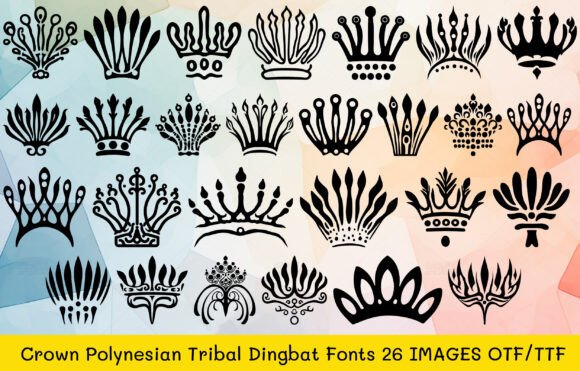
Crown Polynesian Tribal Font: Elevate Your Designs with Tropical Flair
In the realm of typography, fonts play a pivotal role in conveying messages, evoking emotions, and adding aesthetic appeal to designs. Among the myriad of font styles available, the Crown Polynesian Tribal Font stands out for its unique blend of traditional Polynesian tribal motifs with a modern, stylish twist. This comprehensive article delves into the features, benefits, and creative applications of the Crown Polynesian Tribal Font, a versatile typeface that is set to revolutionize your design projects.
Introduction to Crown Polynesian Tribal Font
The Crown Polynesian Tribal Font is a distinctive typeface that draws inspiration from the rich cultural heritage of Polynesian tribal designs. This font set comprises 26 unique designs, each corresponding to a letter of the alphabet from A to Z. What makes this font particularly appealing is its ability to infuse any design project with a tropical and exotic flair, reminiscent of the vibrant cultures of Polynesia.
Key Features of Crown Polynesian Tribal Font
- Unique Designs: The font features 26 unique designs inspired by Polynesian tribal motifs, ensuring that each letter is a work of art in itself.
- Tropical Touch: The font’s tropical inspiration makes it perfect for projects that require a distinctive, exotic aesthetic.
Applications of Crown Polynesian Tribal Font
The Crown Polynesian Tribal Font is not just a typeface; it’s a design element that can elevate a wide range of projects. Here are some of the key areas where this font can make a significant impact:
- Branding: Use the font to create memorable logos and brand identities that stand out with a unique, tropical vibe.
- Crafting: Perfect for crafters who want to add a personal touch to their products, such as handmade cards, artisanal jewelry, and bespoke home decor.
- Graphic Design: Enhance your brochures, posters, and digital graphics with a touch of Polynesian elegance.
- Web Design: Add a tropical flair to website headers, menus, and other design elements to create a memorable user experience.
Benefits of Using Crown Polynesian Tribal Font
Incorporating the Crown Polynesian Tribal Font into your designs comes with several benefits:
- Cultural Appeal: The font’s unique cultural inspiration can help your designs stand out and evoke a sense of exotic beauty.
- Time-Saving: With a ready-made set of intricately designed letters, you can significantly reduce the time spent on custom design work.
Tips for Maximizing the Potential of Crown Polynesian Tribal Font
To get the most out of this distinctive font, consider the following tips:
- Mix and Match: Combine the font with other design elements and fonts to create visually appealing contrasts.
- Experiment with Colors: The font’s design lends itself well to bold, vibrant colors often associated with tropical and Polynesian aesthetics.
- Consider Context: Ensure that the use of a Polynesian-inspired font aligns with your project’s context and audience to enhance its impact.
The Crown Polynesian Tribal Font is a remarkable design tool that brings the beauty and essence of Polynesian tribal motifs to your fingertips. With its set of 26 unique letters, compatibility with both OTF and TTF formats, and versatile application across various design projects, this font set is poised to add a distinctive touch to your creations. Whether you’re a professional designer or a crafting enthusiast, the Crown Polynesian Tribal Font offers an exciting opportunity to infuse your work with a tropical flair, setting it apart in a crowded design landscape.
- Q: What inspired the Crown Polynesian Tribal Font?
- A: The font was inspired by traditional Polynesian tribal designs, offering a modern interpretation of these classic motifs.